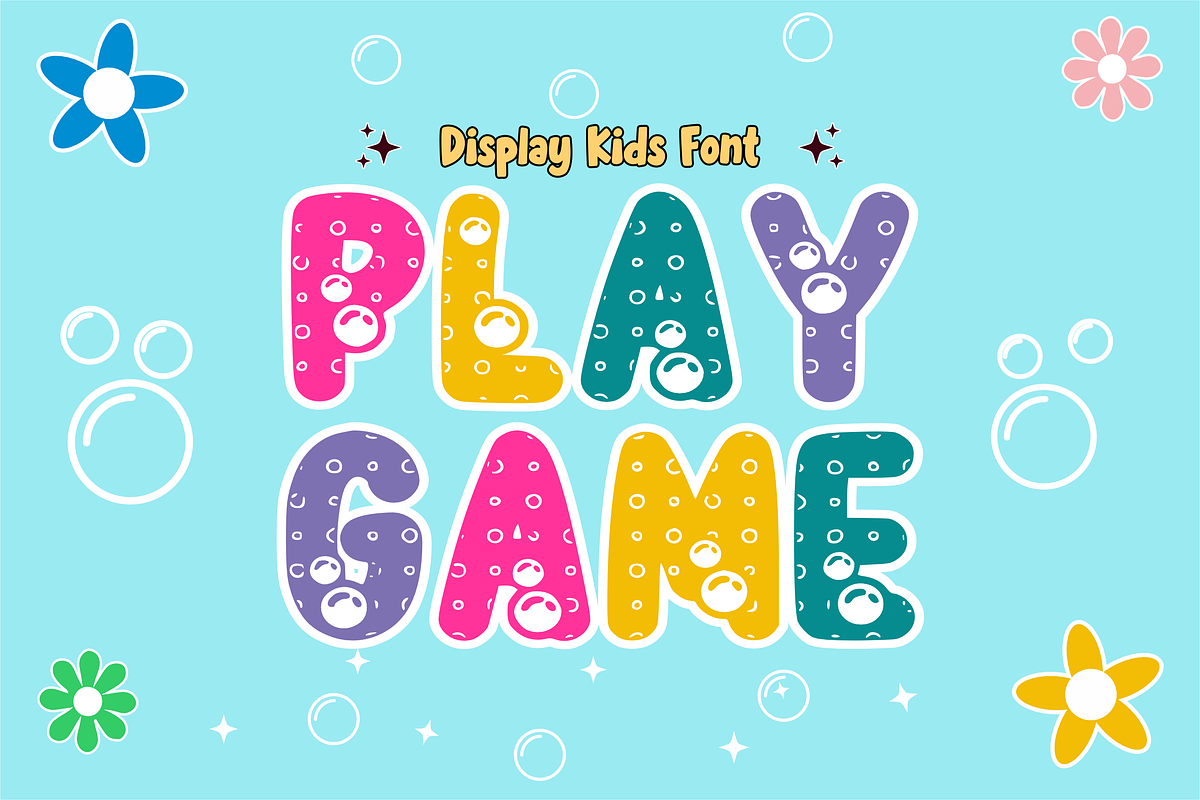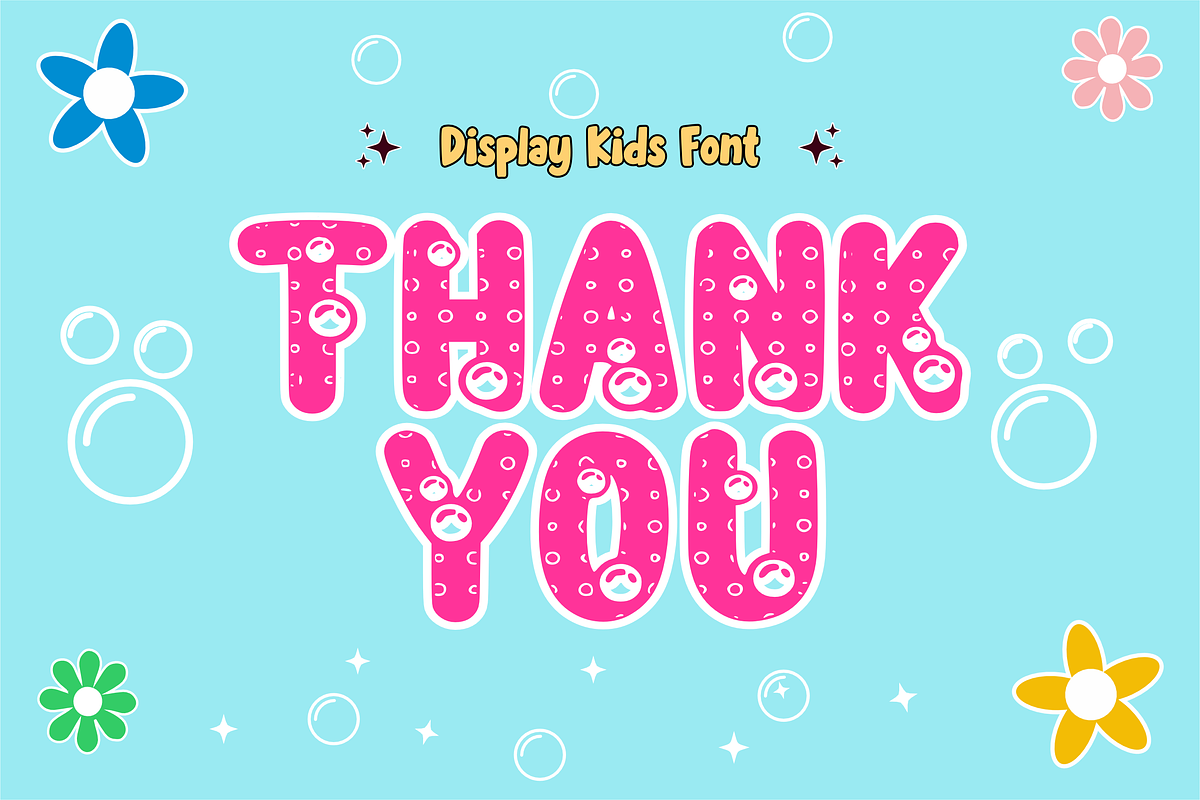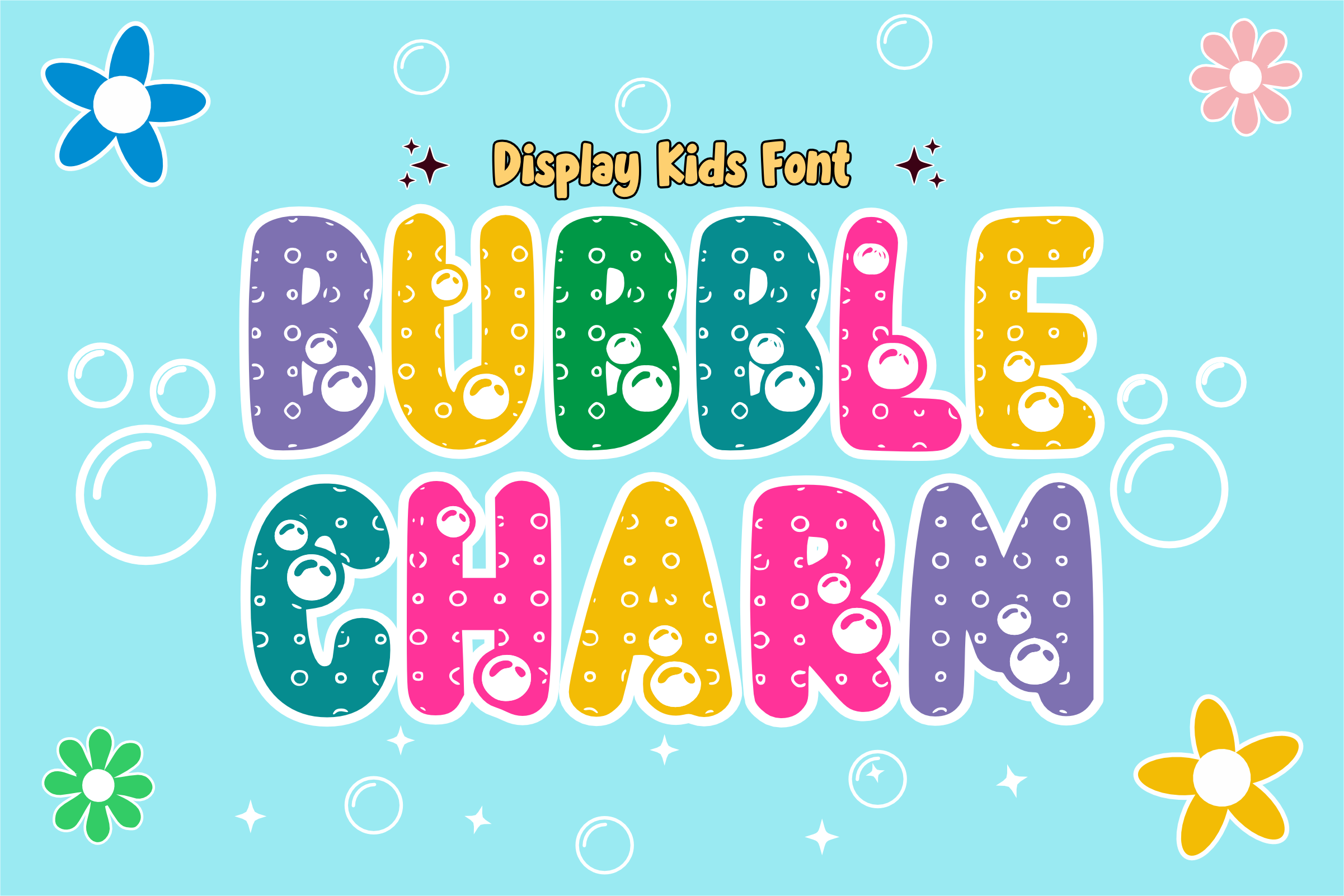
Bubble Charm - Bubble Font Types
Introducing “Bubble Charm” is a cheerful Decorative Bubble font with a children’s theme, each character is bubbled so it is easy to recognize. Perfect for sublimation designs for t-shirts, mugs, tote bags, animations, comic titles, and more. Pour your imagination here.! and continue to support our store by liking and following, so that we are excited to create other new and unique fonts, Thank you!